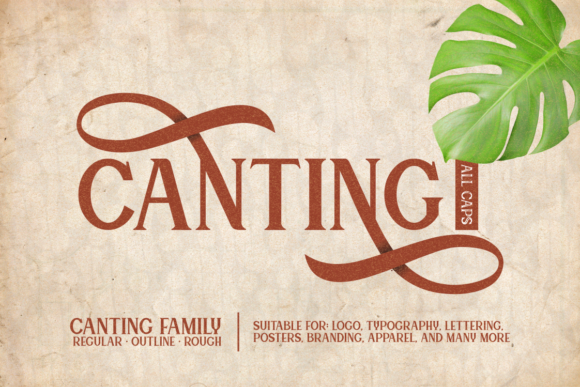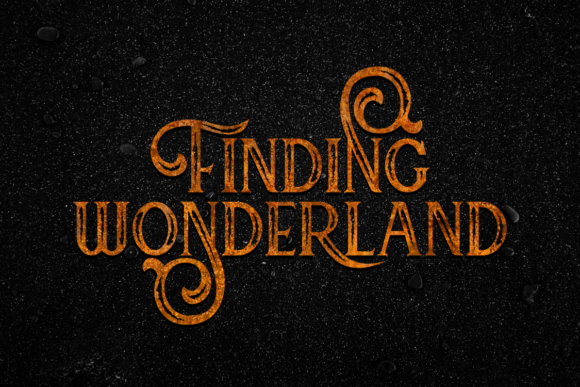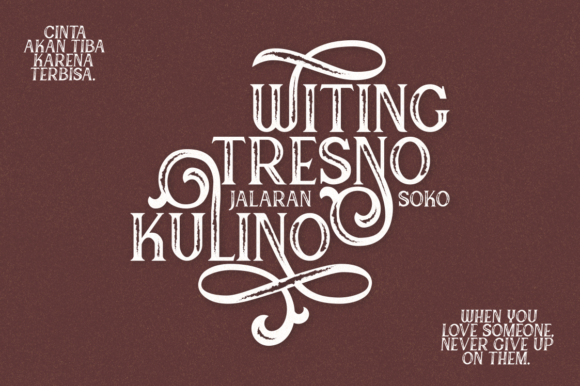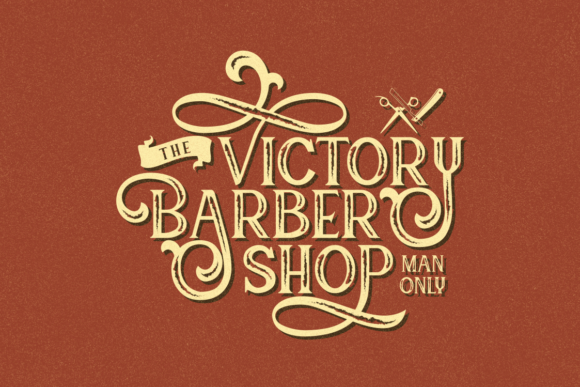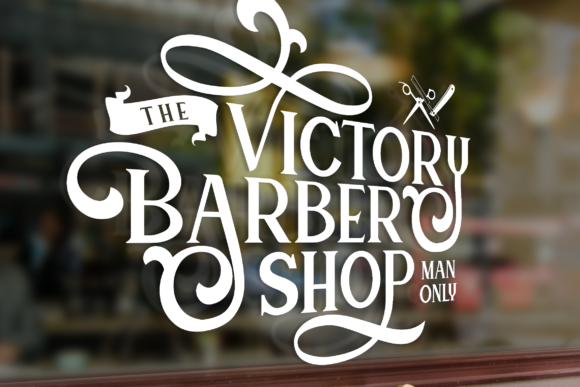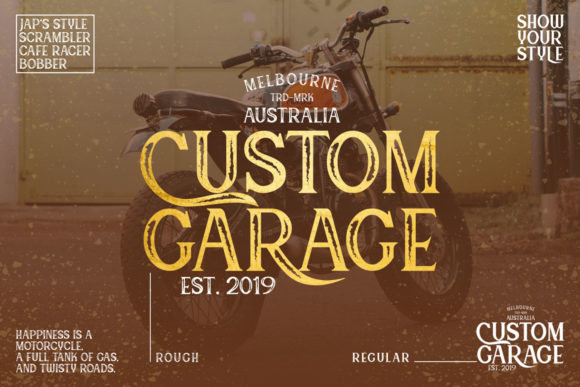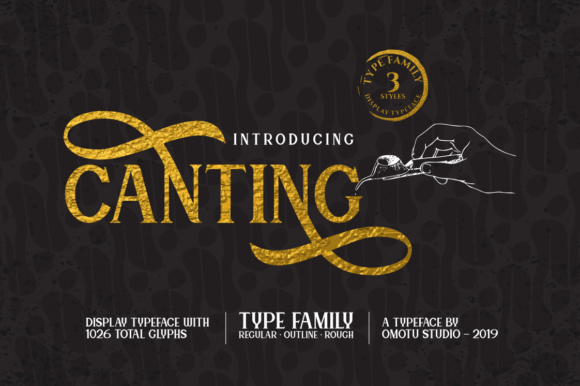
Canting Font: Elevate Your Designs with Vintage Elegance
In the world of typography, fonts play a crucial role in conveying the tone and aesthetic of a design. For designers and crafters looking to add a touch of vintage elegance to their work, the Canting Font is an excellent choice. This decorative serif font is perfect for creating elegant logo designs, product packaging, quotes, lettering, and more.
What is Canting Font?
Canting Font is a decorative serif font that beautifully represents vintage aesthetics in a modern and minimalist way. Its unique design elements make it an excellent choice for designers who want to add a touch of sophistication and elegance to their work. The font’s serif details are carefully crafted to provide a sense of luxury and refinement, making it perfect for high-end designs.
Key Features of Canting Font
The Canting Font has several key features that make it an excellent choice for designers and crafters. Some of its notable features include:
- Decorative Serif Details: The font’s serif details are intricately designed to provide a sense of luxury and refinement.
- Vintage Aesthetic: The font perfectly represents vintage aesthetics in a modern and minimalist way.
- Elegant and Sophisticated: The font’s design elements make it perfect for creating elegant and sophisticated designs.
- Versatile: The font is perfect for a wide range of design applications, including logo designs, product packaging, quotes, lettering, and more.
Uses of Canting Font
The Canting Font is a versatile font that can be used for a wide range of design applications. Some of the most popular uses of the font include:
- Elegant Logo Designs: The font is perfect for creating elegant and sophisticated logo designs that convey a sense of luxury and refinement.
- Product Packaging: The font can be used to create beautiful and eye-catching product packaging that stands out on store shelves.
- Quotes and Lettering: The font is perfect for creating inspirational quotes, lettering, and other typography-based designs.
- Wedding and Event Designs: The font’s elegant and sophisticated design elements make it perfect for wedding and event designs, such as invitations, programs, and more.
Benefits of Using Canting Font
There are several benefits to using the Canting Font in your designs. Some of the most notable benefits include:
- Unique and Eye-Catching Designs: The font’s unique design elements make it perfect for creating unique and eye-catching designs that stand out from the crowd.
- Professional and Sophisticated Look: The font’s elegant and sophisticated design elements give designs a professional and polished look.
- Versatility: The font can be used for a wide range of design applications, making it a great addition to any designer’s toolkit.
- Easy to Read: Despite its decorative details, the font is easy to read, making it perfect for designs that require a lot of text.
Tips for Using Canting Font
To get the most out of the Canting Font, here are a few tips to keep in mind:
- Use it Sparingly: While the font is beautiful, it’s best to use it sparingly to avoid overwhelming the design.
- Pair it with Other Fonts: The font pairs well with other fonts, so don’t be afraid to experiment with different font combinations.
- Experiment with Different Sizes: The font looks great in a variety of sizes, so experiment with different sizes to find the one that works best for your design.
| Author | Omotu |
The Canting Font is a beautiful and versatile font that is perfect for designers and crafters looking to add a touch of vintage elegance to their work. With its decorative serif details, elegant and sophisticated design elements, and versatility, it’s an excellent choice for a wide range of design applications. Whether you’re creating elegant logo designs, product packaging, quotes, lettering, or more, the Canting Font is sure to elevate your designs to the next level.